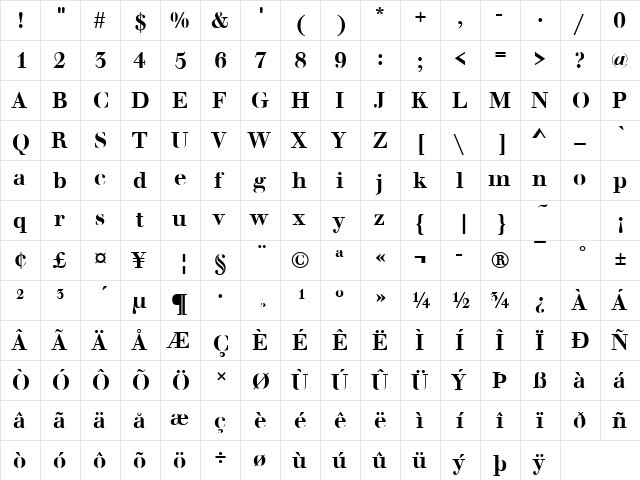
WalbaumBucTMed Regular
Design Context for WalbaumBucTMed Typeface
WalbaumBucTMed takes a measured approach to typography — its balanced proportions and neutral character make it a reliable workhorse for both digital and print work.
Pro Tip: Use WalbaumBucTMed in both headline and body roles to test its range before committing to a single application.